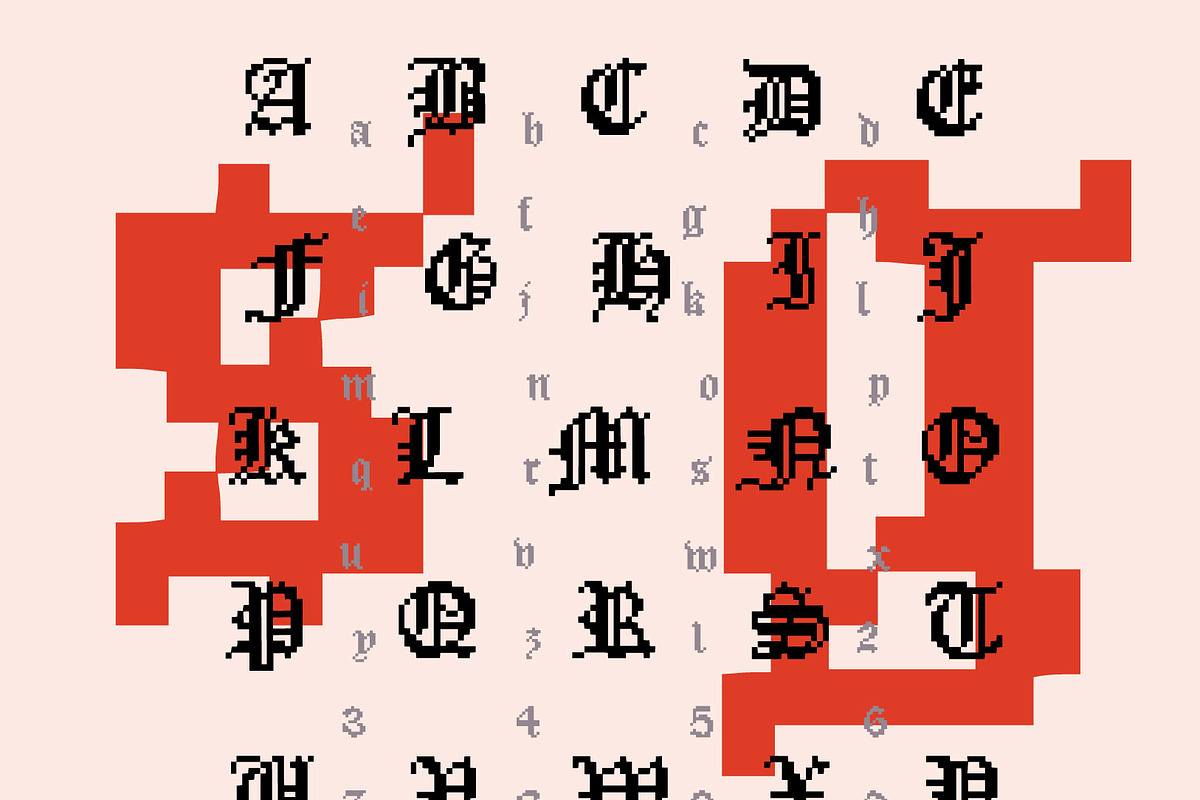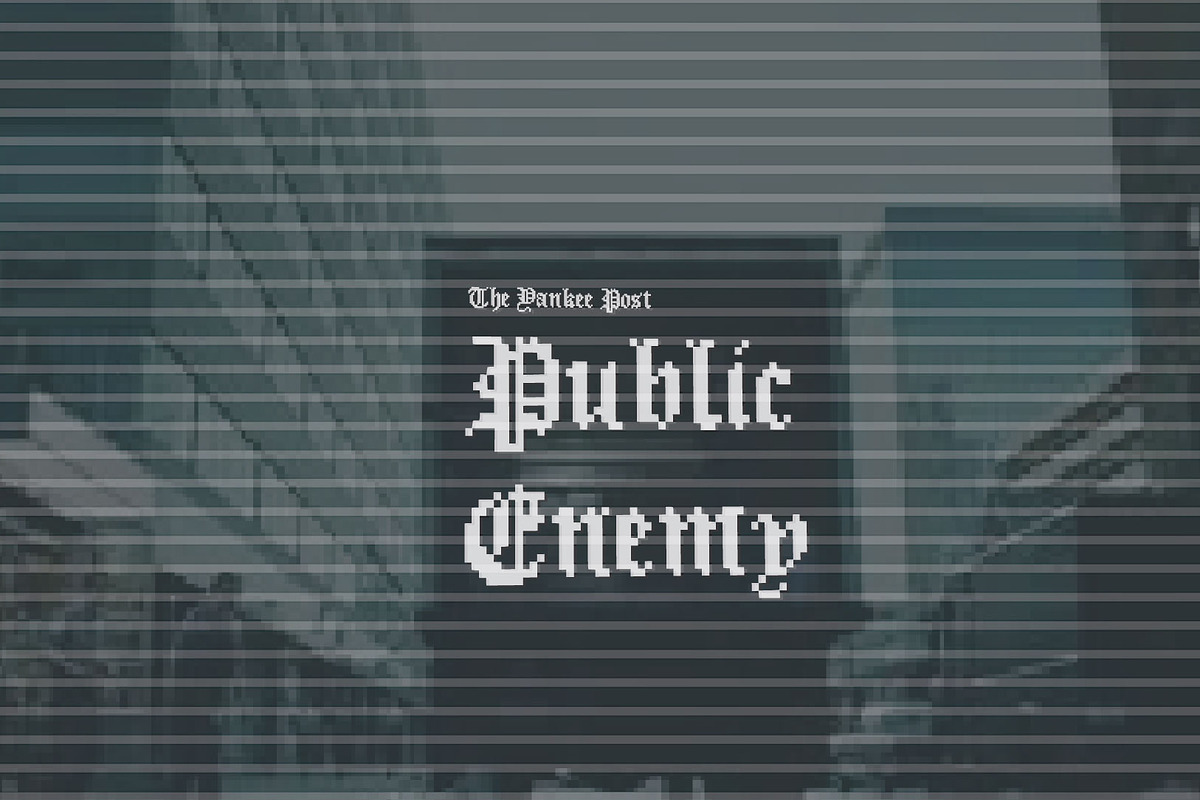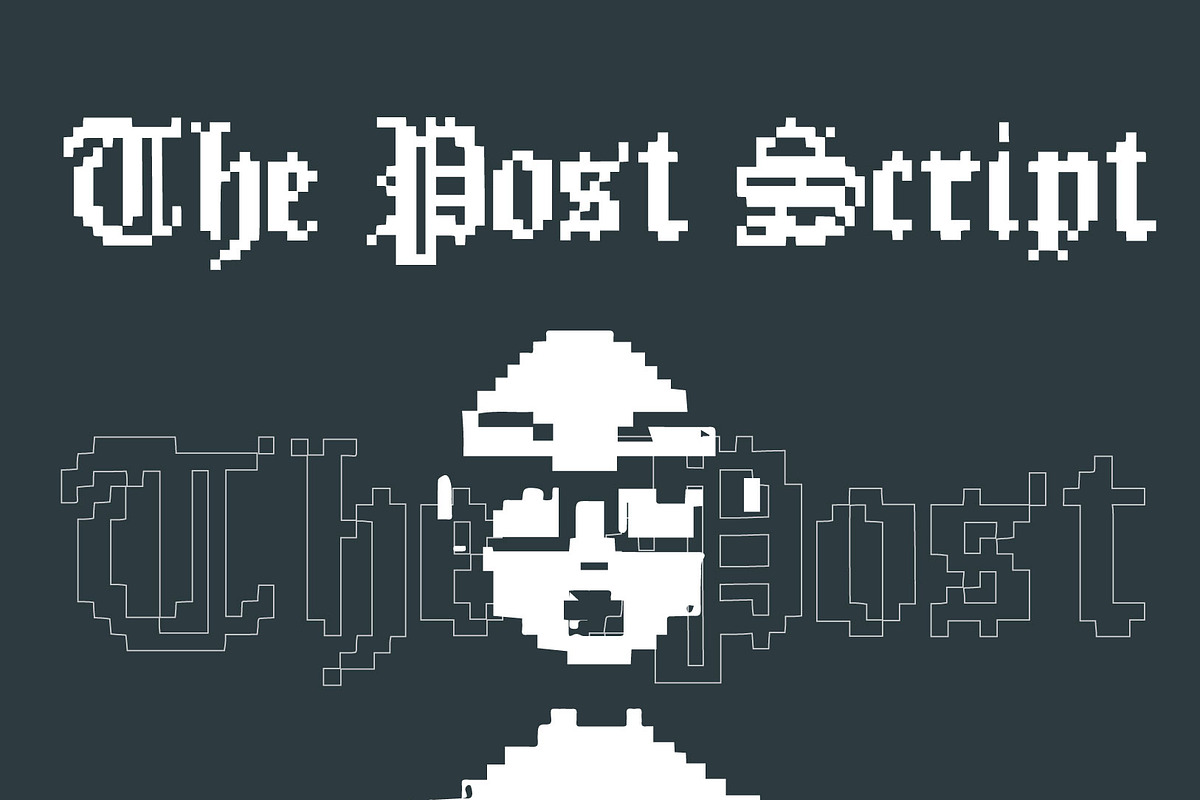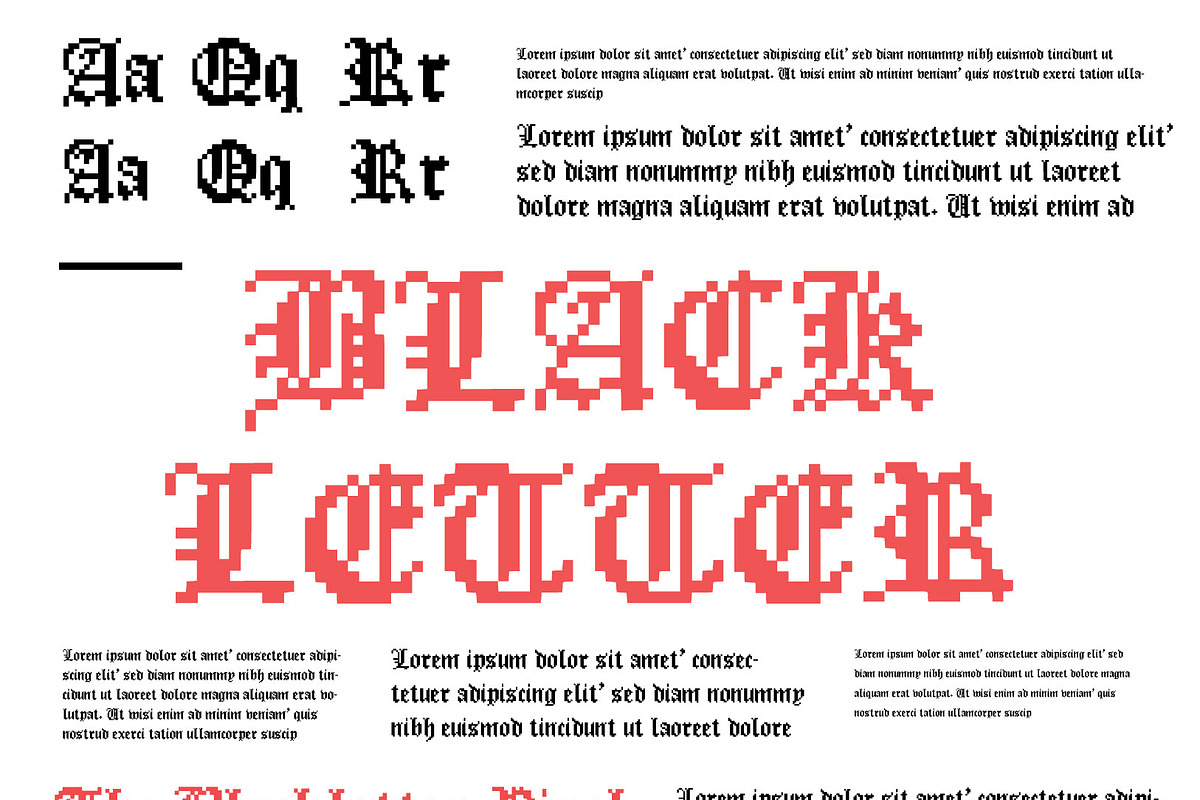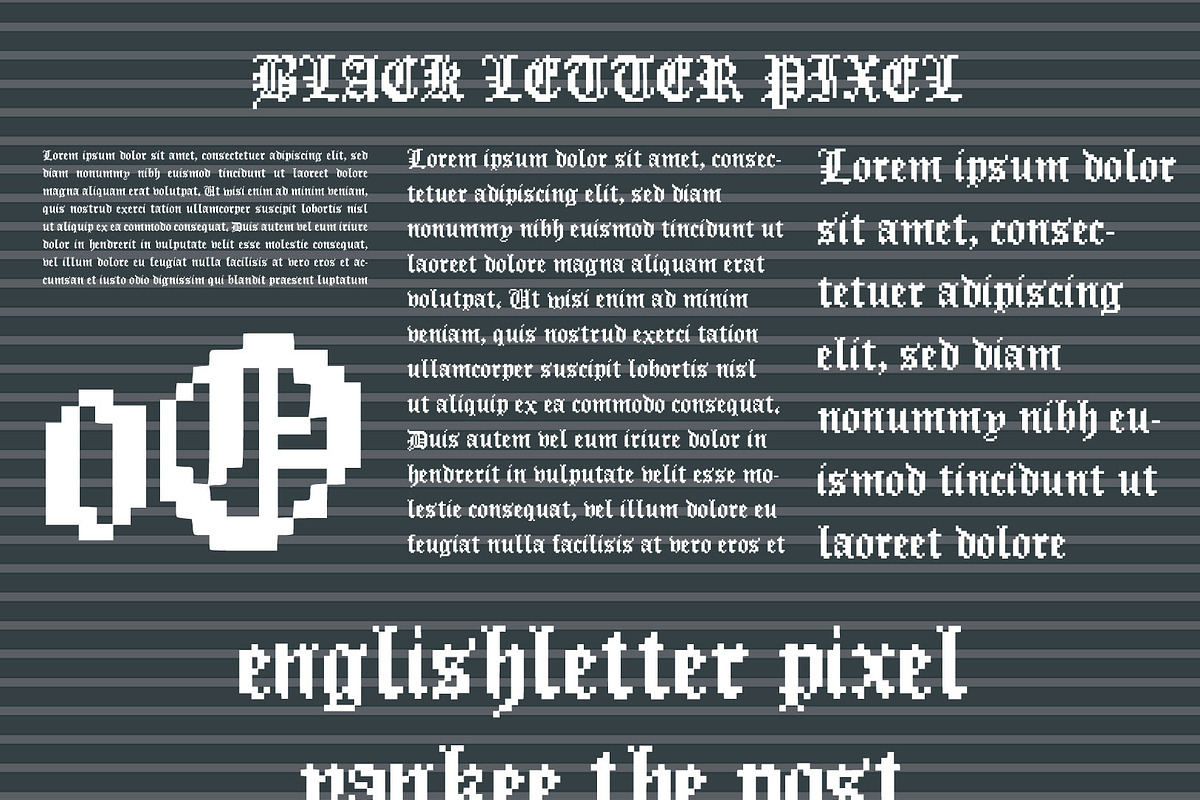
Englishthepost Pixel
The Pixel 8 Bit Font
English The Post Pixel Yankee Letter Old
Therefore, the color palette for an 8-bit image normally contains 256 entries, defining color 0 through color 255
Old English is a West Germanic language, and developed out of Ingvaeonic (also known as North Sea Germanic) dialects from the 5th century. It came to be spoken over most of the territory of the Anglo-Saxon kingdoms which became the Kingdom of England.